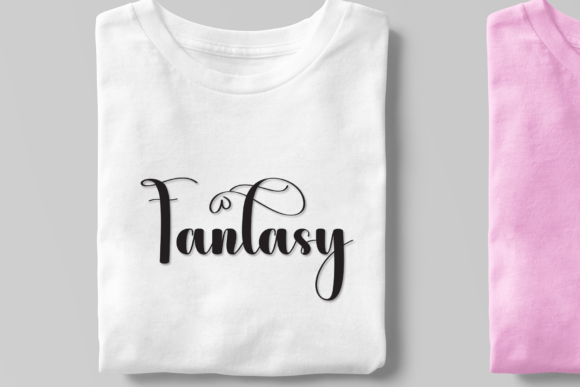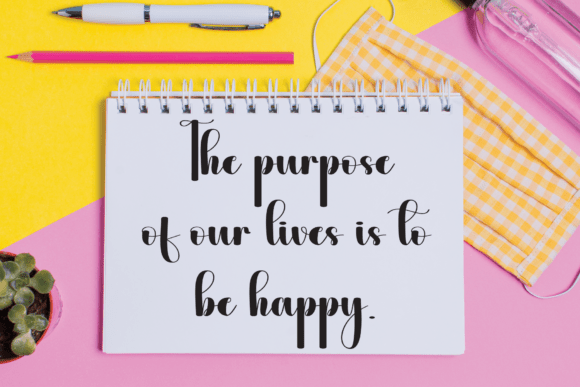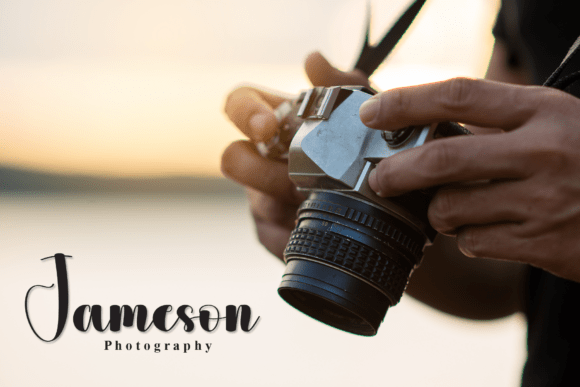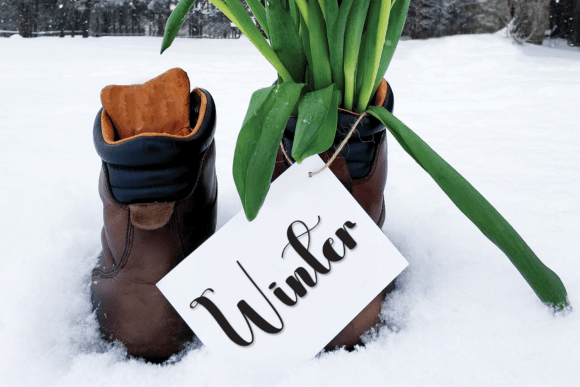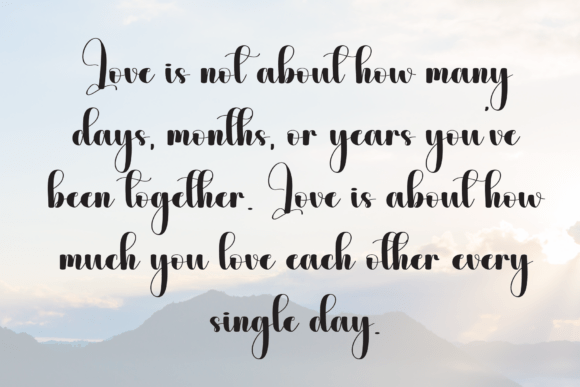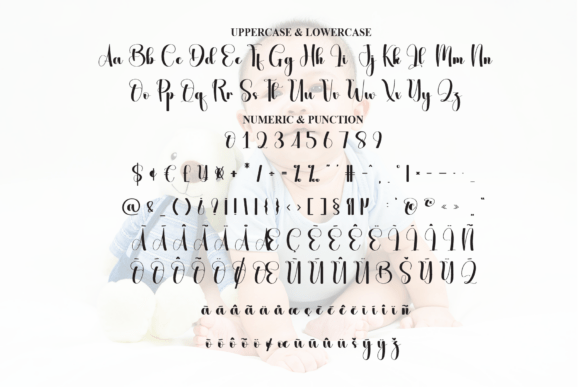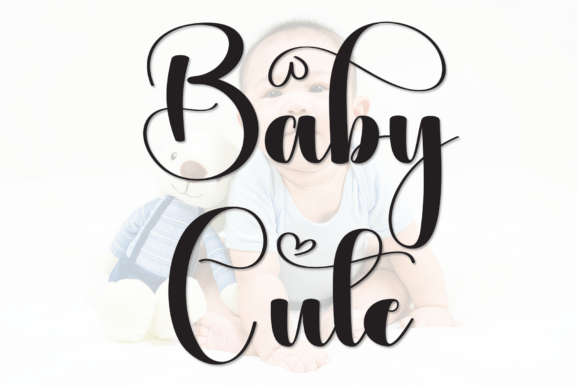
Baby Cute Font: The Ultimate Choice for Adding a Touch of Whimsy to Your Designs
Are you looking for a font that exudes warmth, friendliness, and playfulness? Look no further than the Baby Cute Font! This charming handwritten display font is perfect for designers and crafters who want to add a dash of fun to their projects. In this article, we’ll explore the features and benefits of the Baby Cute Font, and how it can elevate your designs to the next level.
What is Baby Cute Font?
Baby Cute Font is a beautiful, hand-crafted font that is designed to radiate warmth and friendliness. Its adorable and spirited style makes it perfect for wedding invitations, cards, and any design that longs for a touch of whimsy. The font’s blend of sweet innocence and playful allure makes it irresistibly appealing for any design adventure needing a sprinkle of joy!
Key Features of Baby Cute Font
- Handwritten Display Font: Baby Cute Font is a handwritten display font that is designed to add a personal touch to your designs.
- Warm and Friendly: The font’s warm and friendly style makes it perfect for designs that require a touch of approachability.
- Adorable and Spirited: The font’s adorable and spirited style makes it perfect for designs that require a dash of fun and playfulness.
- Perfect for Wedding Invitations and Cards: Baby Cute Font is perfect for wedding invitations, cards, and any design that requires a touch of elegance and sophistication.
Benefits of Using Baby Cute Font
There are many benefits to using Baby Cute Font in your designs. Here are a few:
- Adds a Touch of Whimsy: Baby Cute Font adds a touch of whimsy and playfulness to your designs, making them stand out from the crowd.
- Perfect for Branding and Marketing: The font’s warm and friendly style makes it perfect for branding and marketing materials that require a touch of approachability.
- Versatile: Baby Cute Font is versatile and can be used for a variety of designs, from wedding invitations to social media graphics.
How to Use Baby Cute Font in Your Designs
Using Baby Cute Font in your designs is easy! Here are a few tips:
- Pair it with Other Fonts: Pair Baby Cute Font with other fonts to create a unique and interesting design.
- Use it for Headings and Titles: Use Baby Cute Font for headings and titles to add a touch of whimsy and playfulness to your designs.
- Add Graphics and Illustrations: Add graphics and illustrations to your designs to make them more visually appealing.
In conclusion, Baby Cute Font is a charming and approachable handwritten display font that radiates warmth and friendliness. Its adorable and spirited style makes it perfect for wedding invitations, cards, and any design that longs for a dash of fun. With its blend of sweet innocence and playful allure, Baby Cute Font is irresistibly appealing for any design adventure needing a sprinkle of joy! So why wait? Download Baby Cute Font today and start adding a touch of whimsy to your designs!
- Is Baby Cute Font easy to read?: Yes, Baby Cute Font is easy to read, making it perfect for designs that require a clear and concise message.